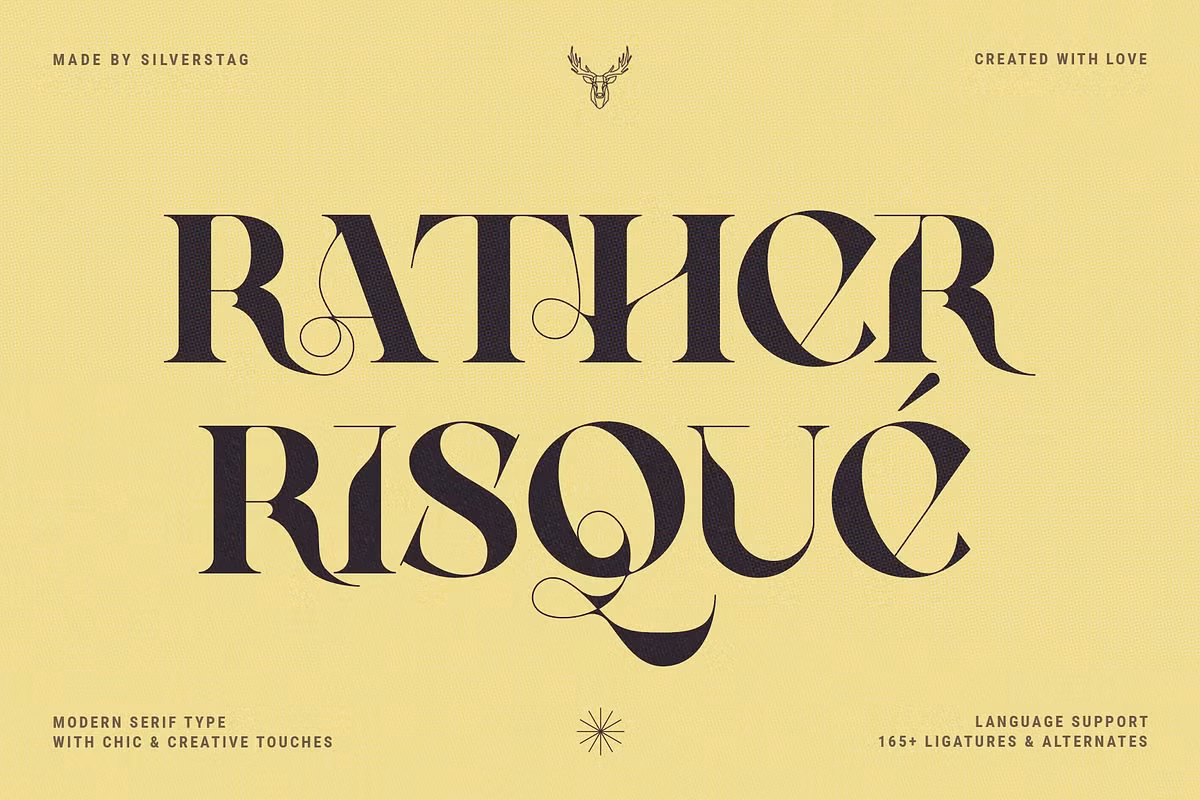
RATHER RISQUÉ – Ligature Serif Font is perfect for bold fashion branding, contemporary magazine layouts, edgy advertising campaigns, modern editorial design, provocative poster creation, avant-garde logo design, daring marketing materials, cutting-edge book covers, sophisticated nightlife promotions, rebellious brand identities, contemporary art publications, and audacious design applications.
RATHER RISQUÉ – Ligature Serif Font is exciting because it pushes the boundaries of traditional serif typography through its daring ligature system and provocative letterforms that challenge conventional design rules while maintaining sophisticated elegance and contemporary appeal. This audacious typeface features bold character connections with innovative ligatures that create visual tension and dynamic energy, perfectly embodying the spirit of modern rebellion against typographic conformity. The font's daring aesthetic appeals to audiences who appreciate bold design choices and aren't afraid to make provocative statements.
RATHER RISQUÉ – Ligature Serif Font includes comprehensive font families: Regular Daring Style, Bold Provocative Weight, Light Edgy Touch, Medium Rebellious Balance, Italic Audacious Slant, Condensed Sharp Format, Extended Bold Width, Ligature Connection Sets, Shadow Dynamic Effects, and Special Rebellious Symbols, providing complete solutions for contemporary edgy design projects that demand bold typographic statements and daring visual impact.
This provocative typography solution transforms conventional communications into bold contemporary statements through its daring ligature system and edgy serif sophistication. RATHER RISQUÉ – Ligature Serif Font Free Download enables designers and bold brands to access premium daring typography that instantly adds edge, sophistication, and contemporary rebellion to any creative project. The font's carefully crafted provocative elements ensure maximum visual impact while maintaining readability and distinctive avant-garde character.
Fashion brands, contemporary magazines, and edgy creative agencies trust RATHER RISQUÉ – Ligature Serif Font for its ability to communicate boldness, sophistication, and contemporary rebellion to audiences seeking cutting-edge design and provocative brand experiences. The typeface's daring construction performs exceptionally well across various applications, from intimate edgy communications to large-scale bold advertising campaigns. Its extensive character support includes multilingual capabilities and avant-garde design elements that enhance provocative brand presentations.
The design philosophy behind RATHER RISQUÉ – Ligature Serif Font celebrates the courage to challenge traditional typography boundaries while maintaining sophisticated elegance and professional quality in contemporary design contexts. This rebellion-focused approach creates a font that feels genuinely daring while maintaining contemporary sophistication across different edgy contexts and bold brand expressions.
Whether creating avant-garde brand identities, cutting-edge editorial materials, or provocative marketing campaigns, this ligature serif delivers exceptional results that embody contemporary rebellion and sophisticated edge. Download RATHER RISQUÉ – Ligature Serif Font today and discover how premium daring typography can transform your design projects into bold expressions of contemporary sophistication, typographic rebellion, and the audacious spirit that defines the most provocative and memorable brand communications.